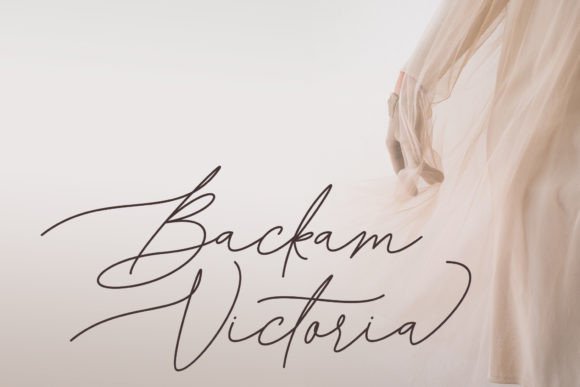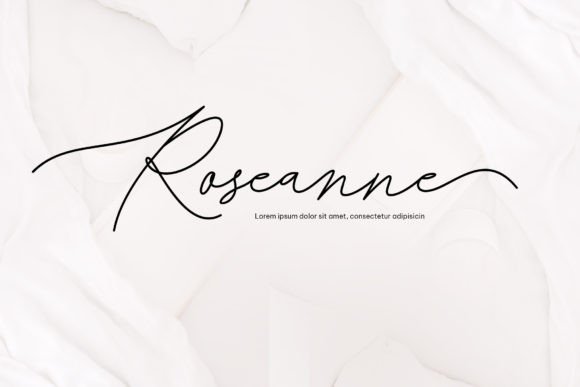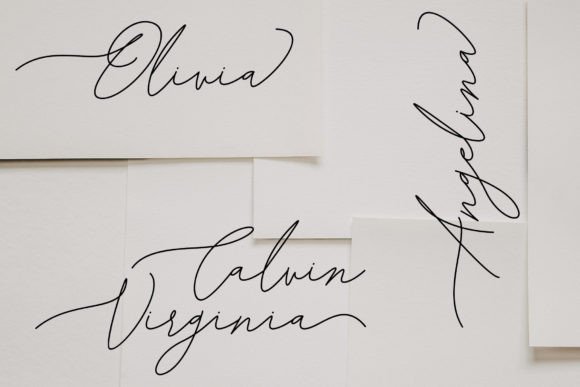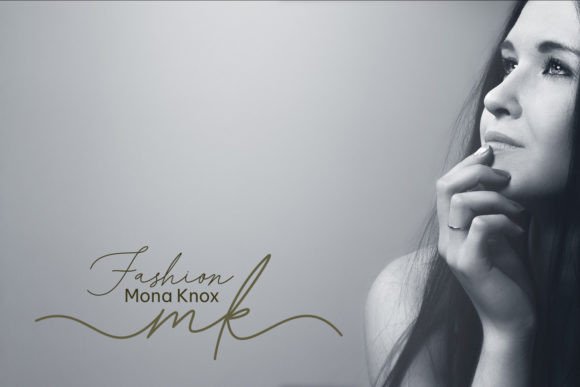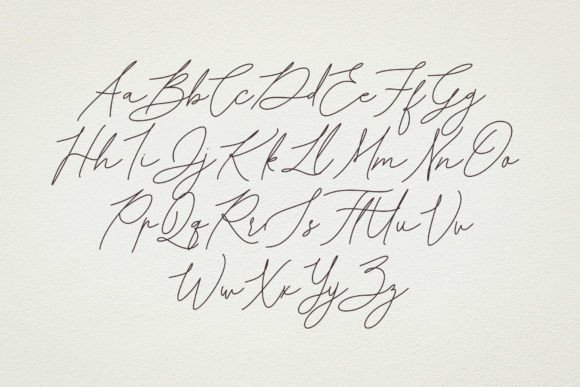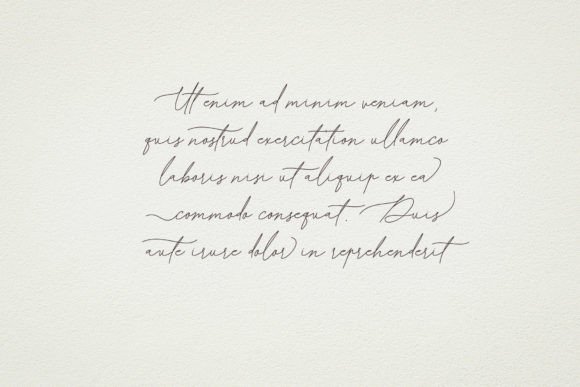
Introduction to Knox Migdalia Font Font
Fonts play a crucial role in design, and the Knox Migdalia Font font is a typeface that brings both character and versatility to any project. Whether you’re working on a branding project, a website, or a print design, the Knox Migdalia Font font offers a unique style that can elevate your work.
Knox Migdalia feels equally charming and elegant.
It looks stunning on wedding invitations, thank you cards, quotes, greeting cards, logos, business cards, and every other design which needs a handwritten touch This font is PUA encoded which means you can access all the glyphs and ligatures with ease.
Key Features of Knox Migdalia Font Font
Why Choose Knox Migdalia Font Font?
The Knox Migdalia Font font is more than just a typeface – it’s a design tool that helps you communicate your message with style and clarity. Its unique character set and versatile design make it suitable for a wide range of applications, from elegant invitations to bold headlines.
With its carefully crafted letterforms and balanced proportions, the Knox Migdalia Font font ensures readability and visual appeal across all mediums.
What makes Knox Migdalia Font font special?
The Knox Migdalia Font font stands out with its unique design, exceptional readability, and versatility across various design applications.